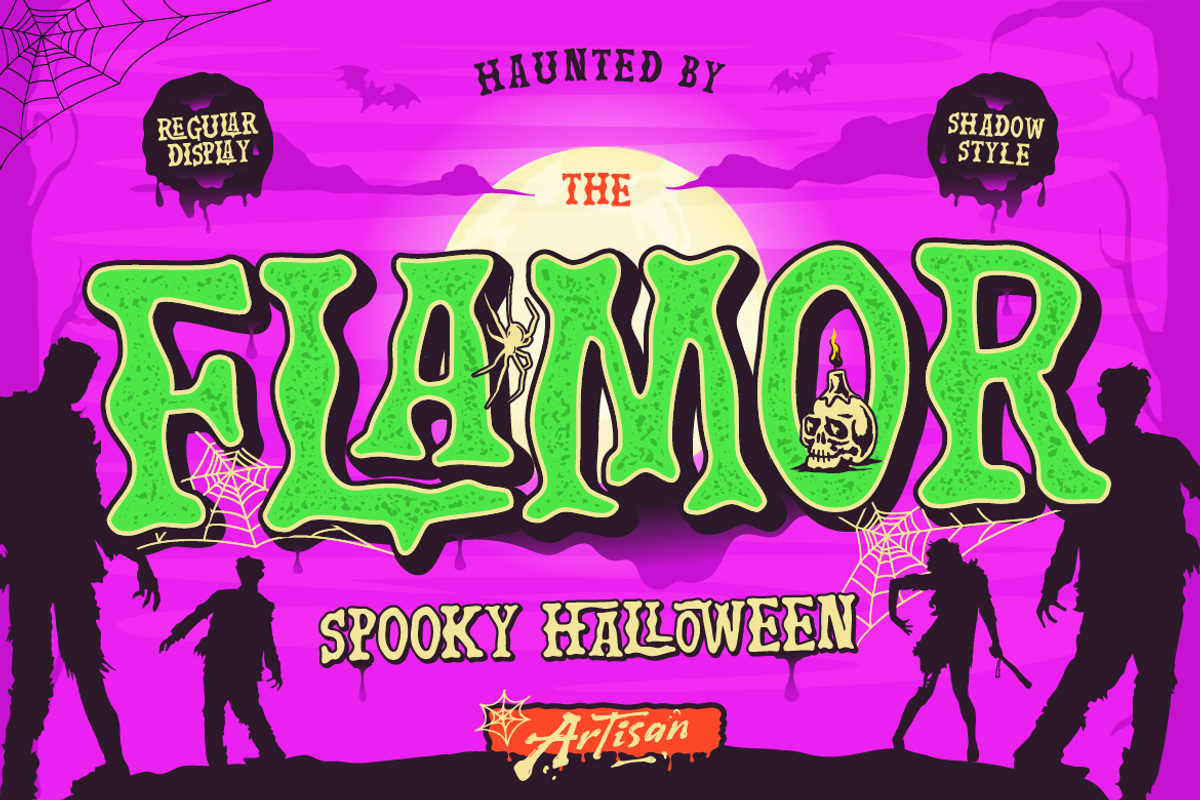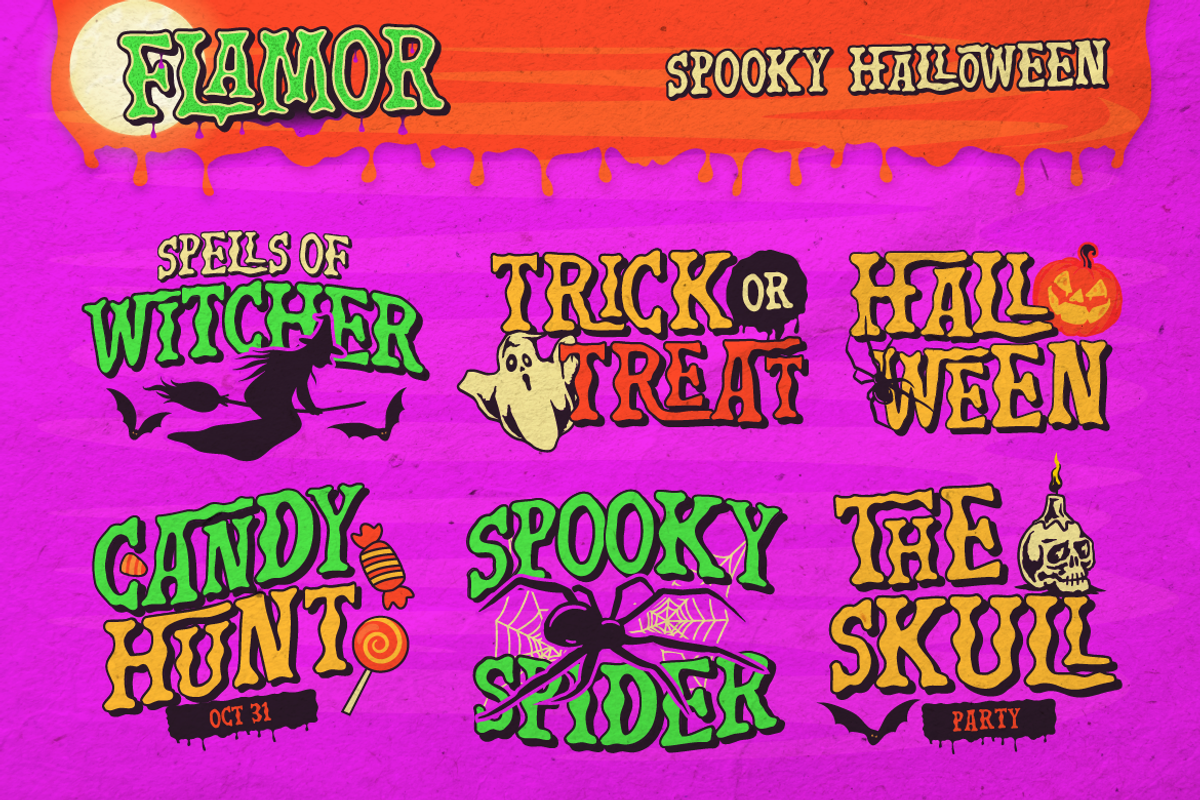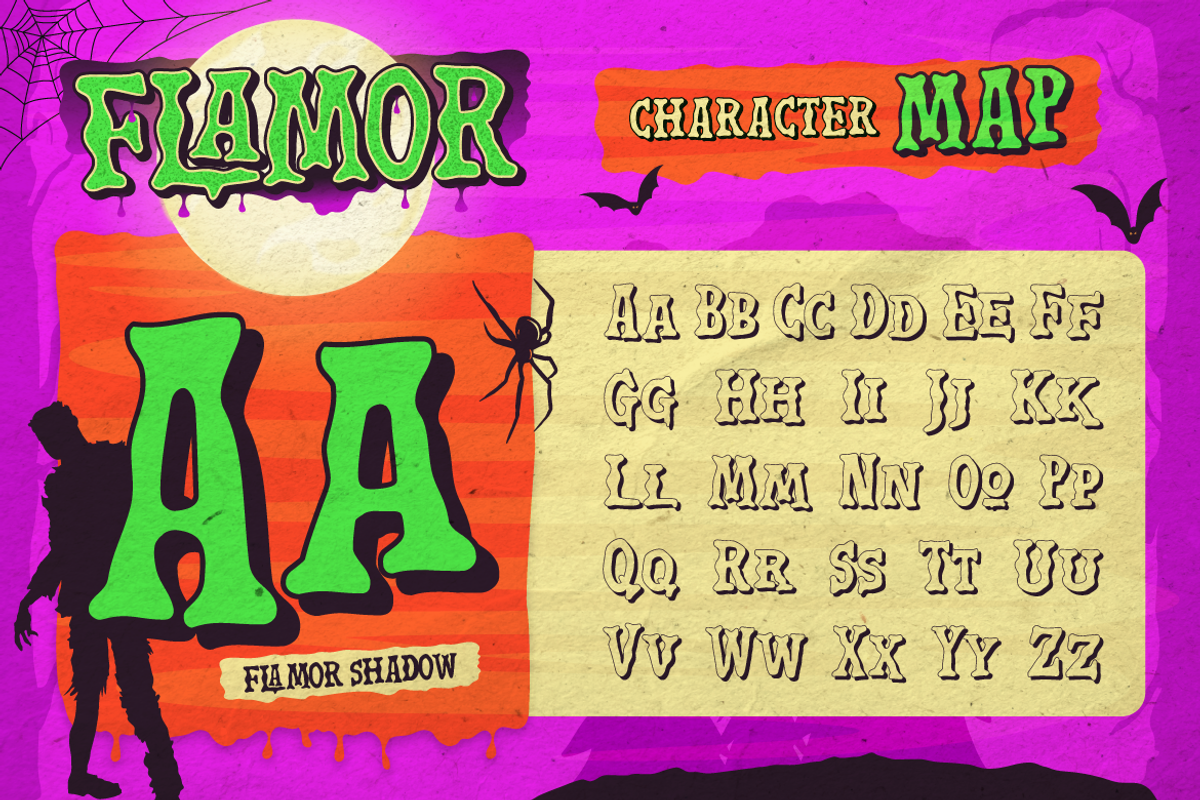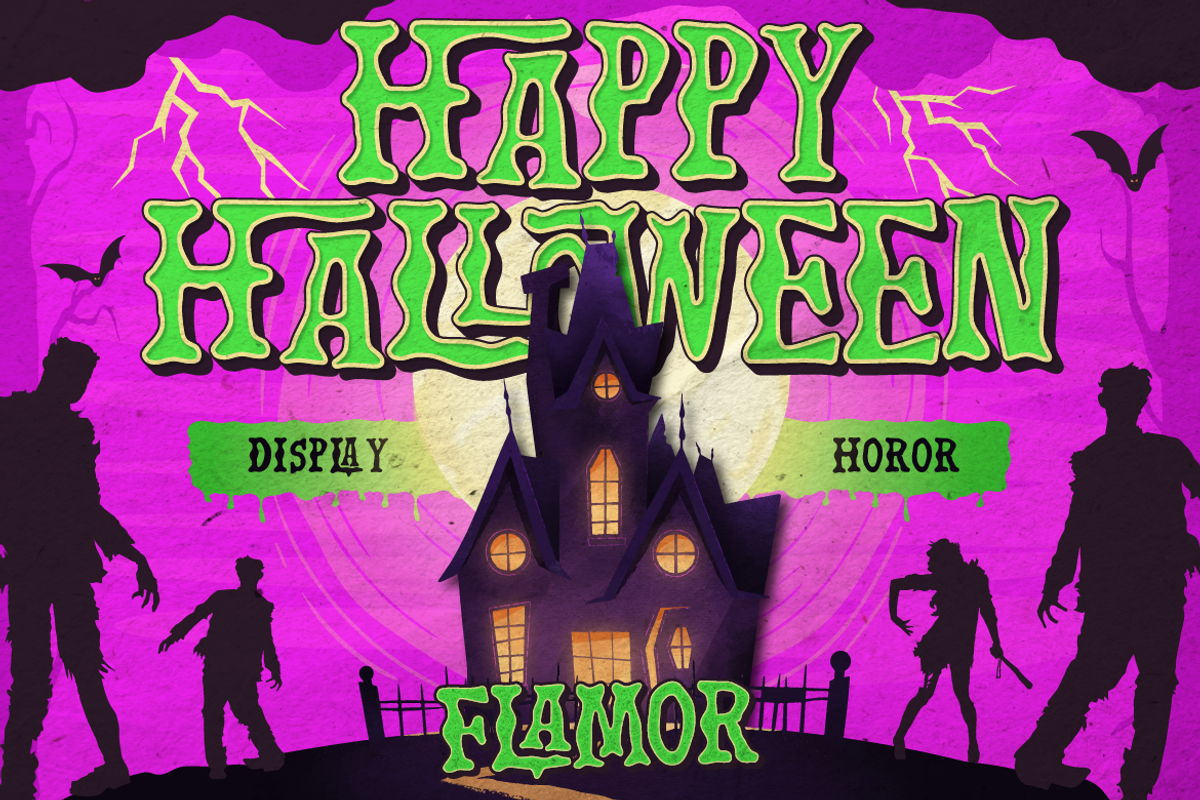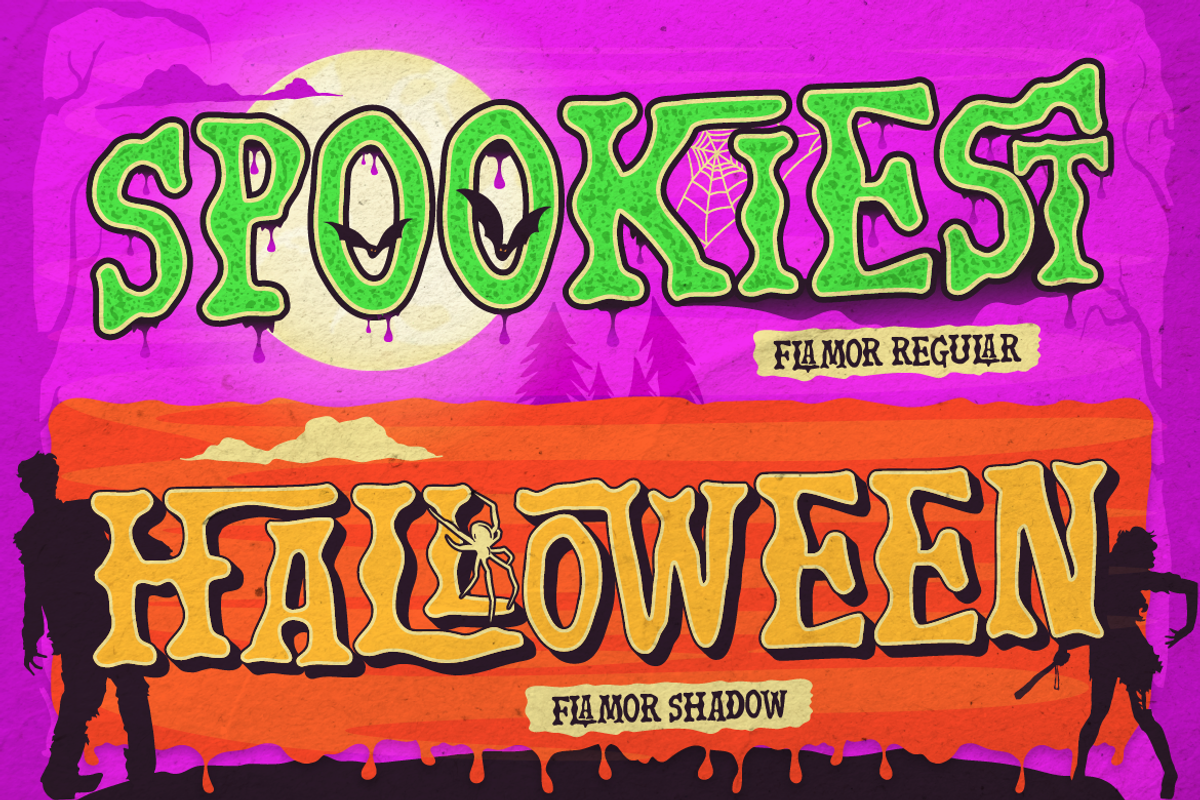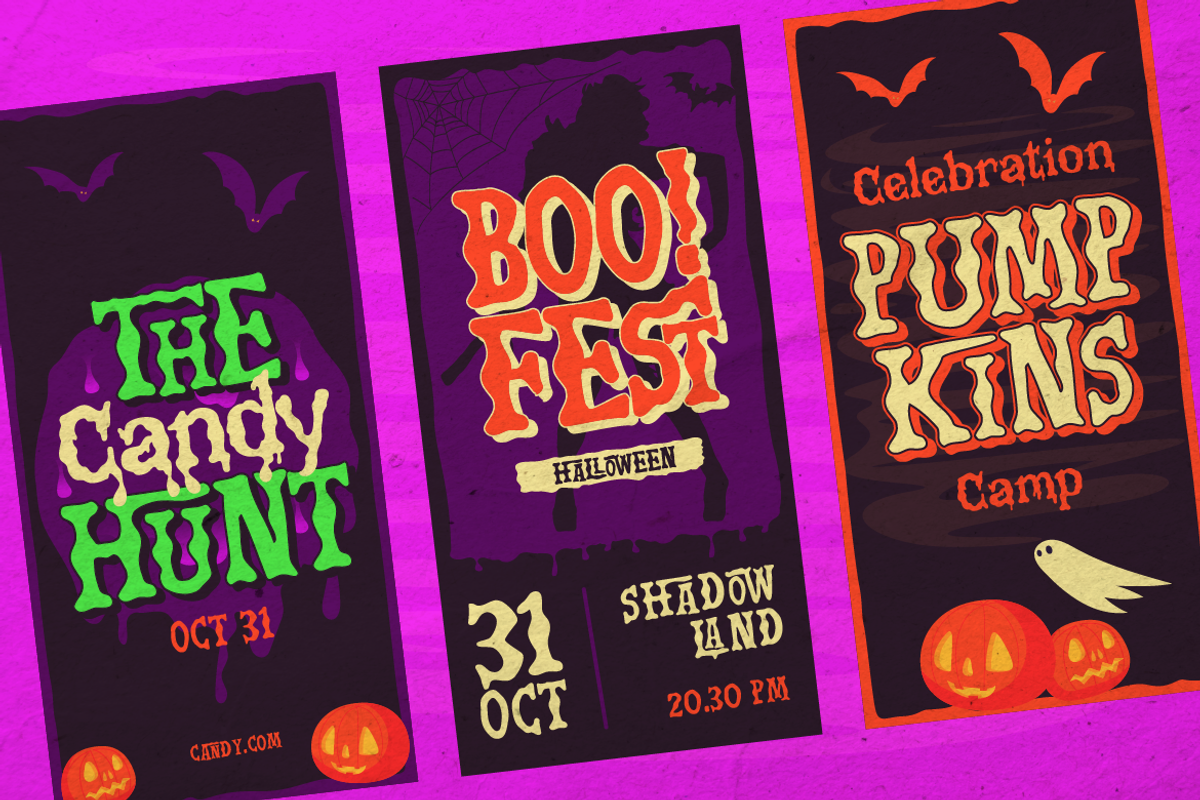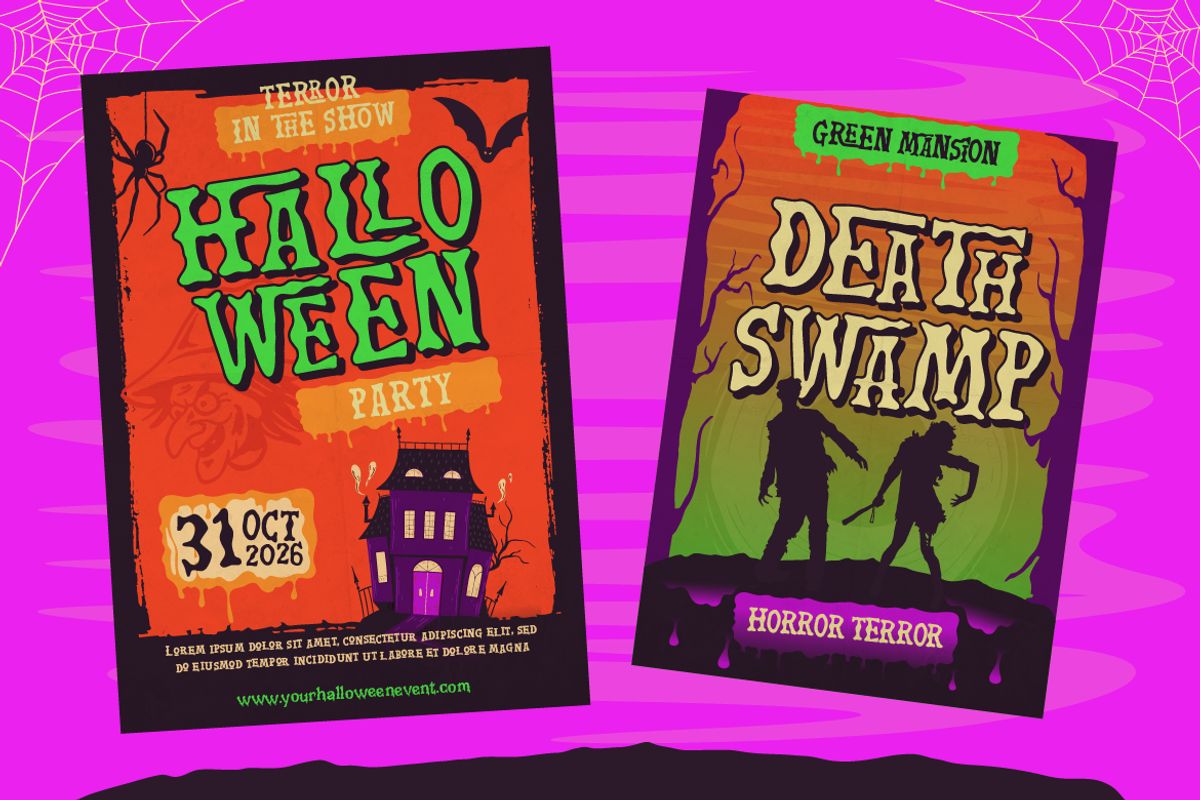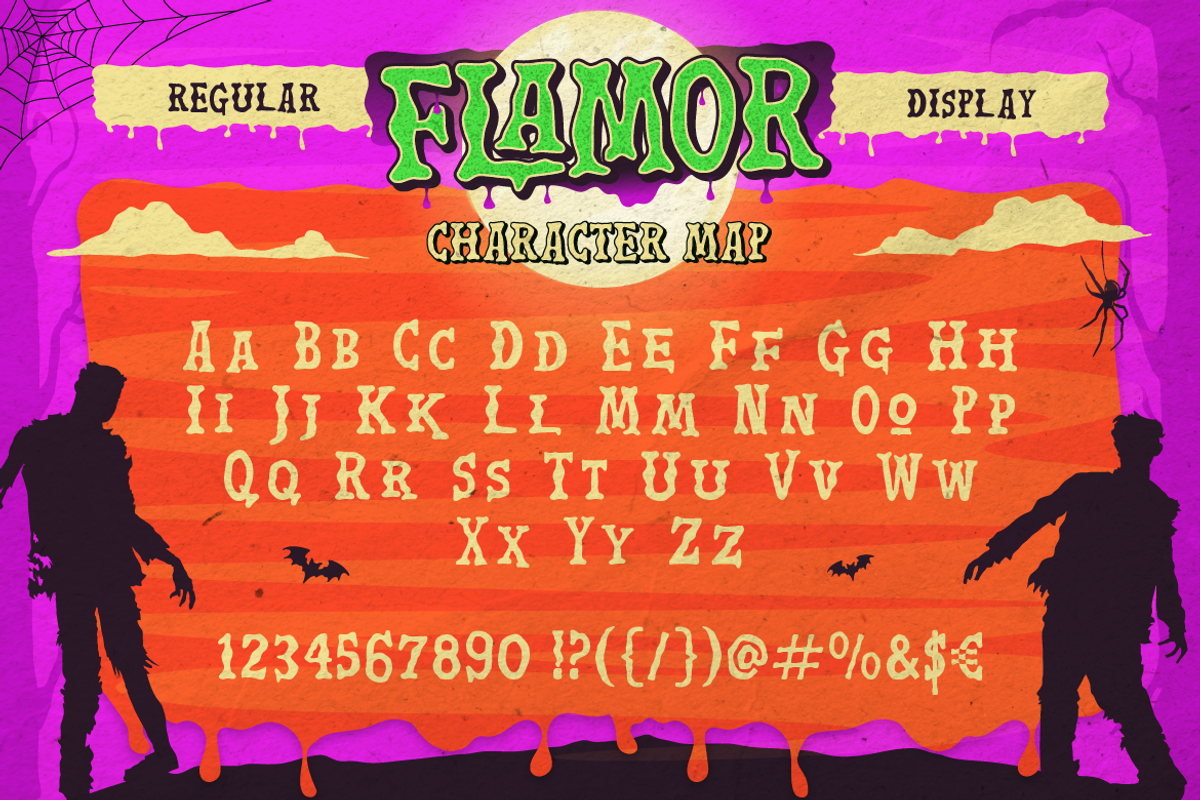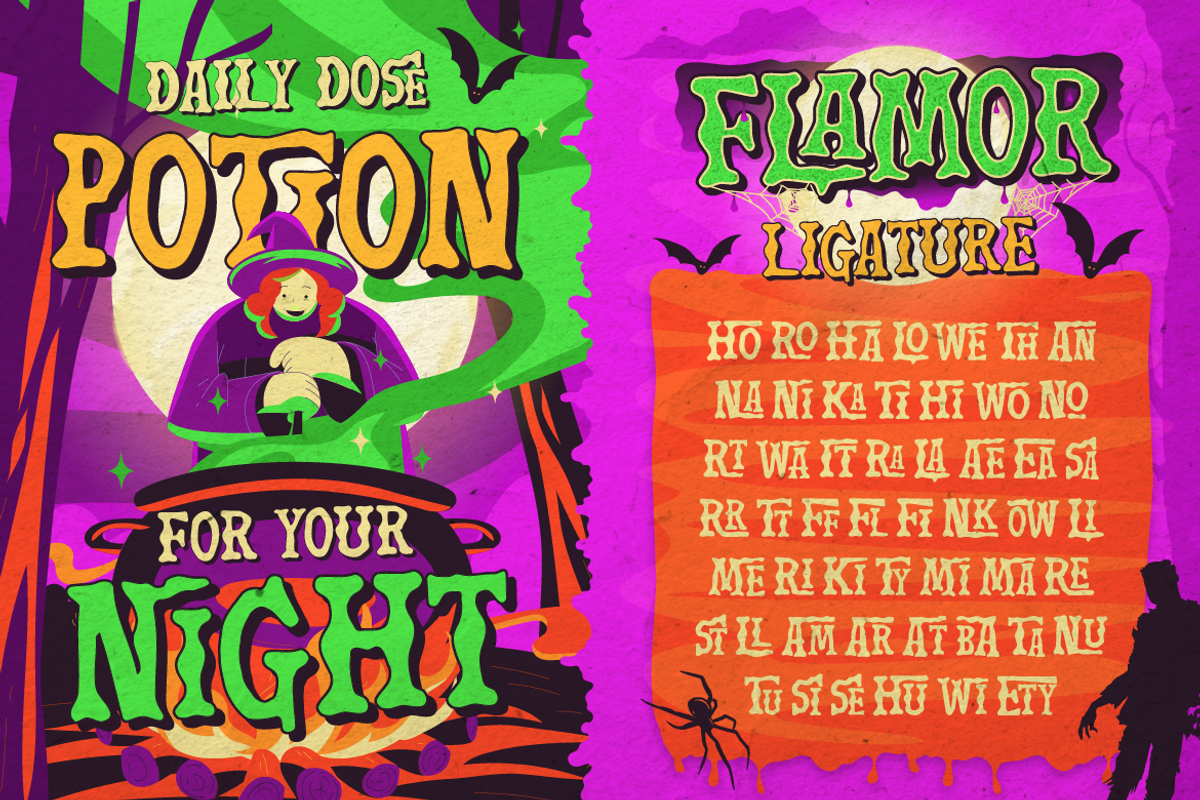
Flamor - Spooky Halloween Font
Bring a fun, bold, and spooky vibe to your design projects with Flamor! This Halloween display font features two distinct styles (Regular and Shadow) along with unique ligatures and multilingual character support. Perfect for party posters, apparel, social media banners, stickers, and spooky branding.
Halloween event flyers & posters
Spooky merchandise & T-shirt designs
Book covers & comic titles
Social media graphics & banners
Party invitations & stickers